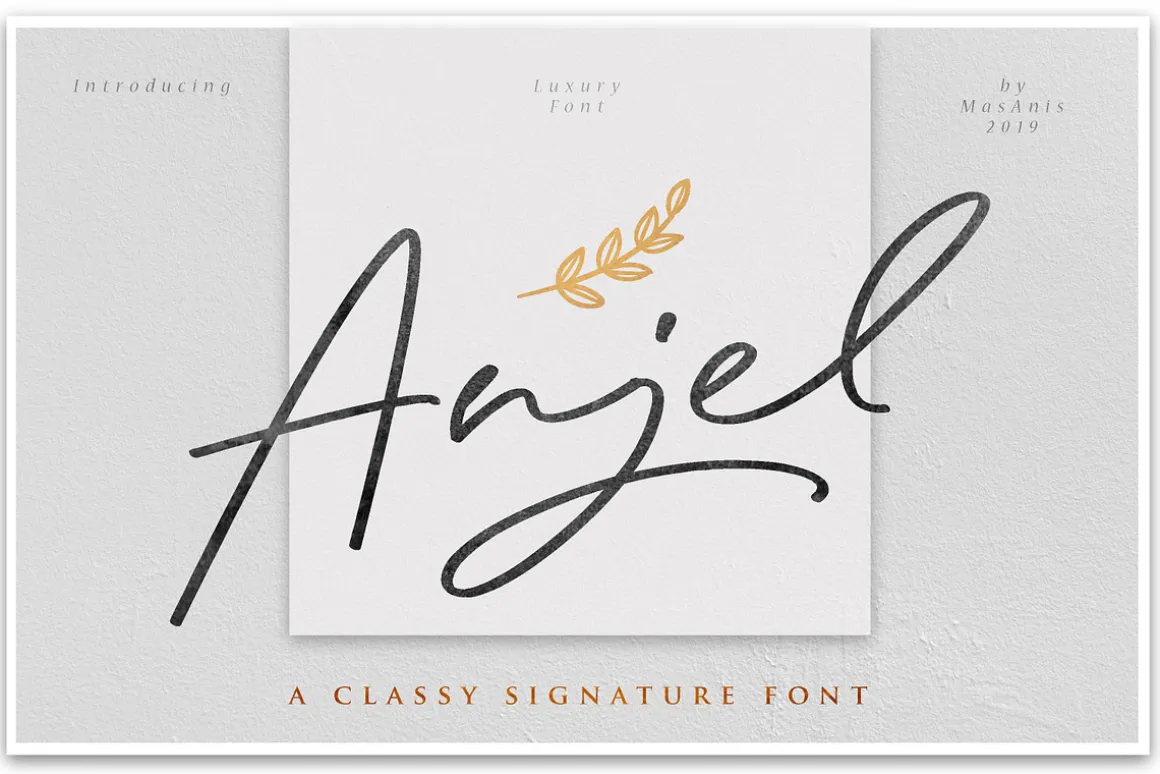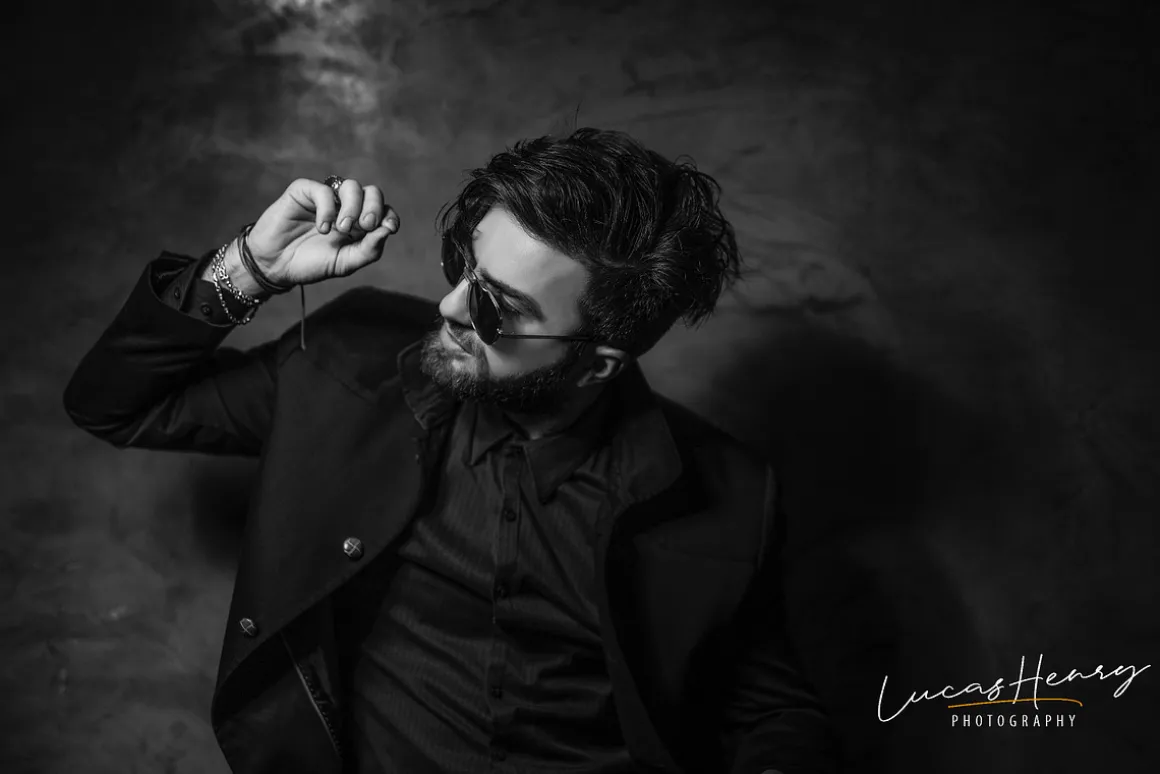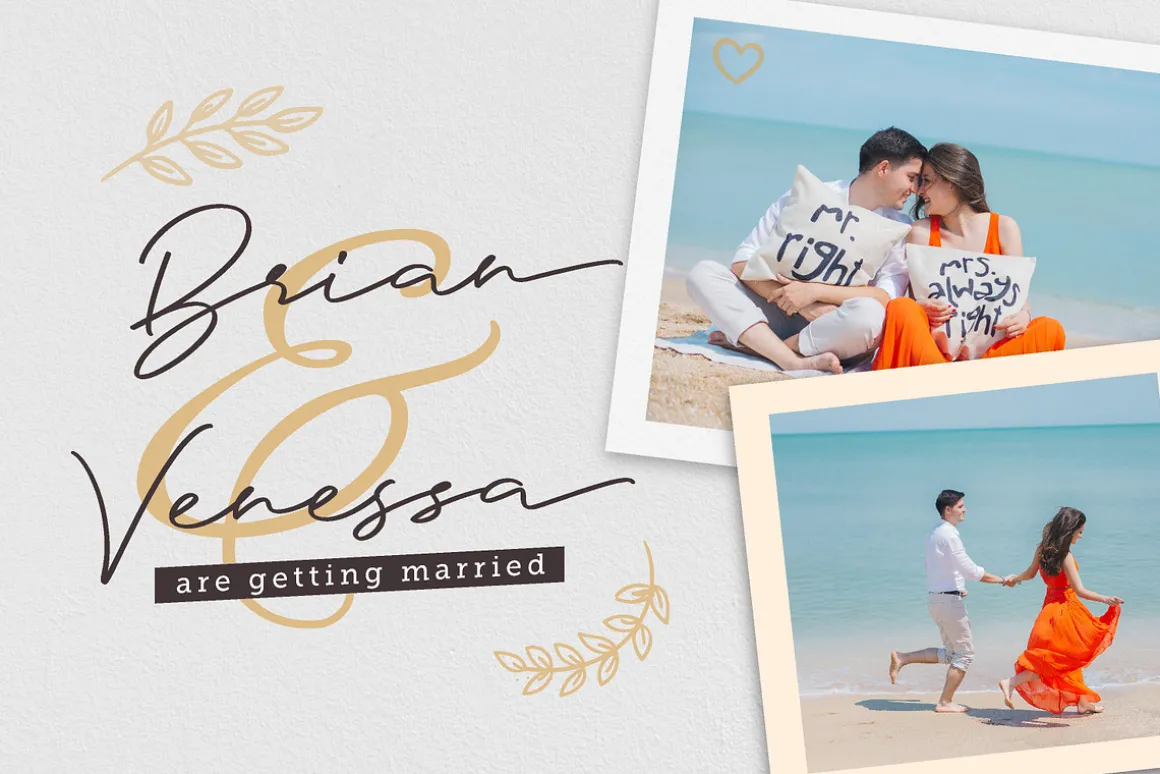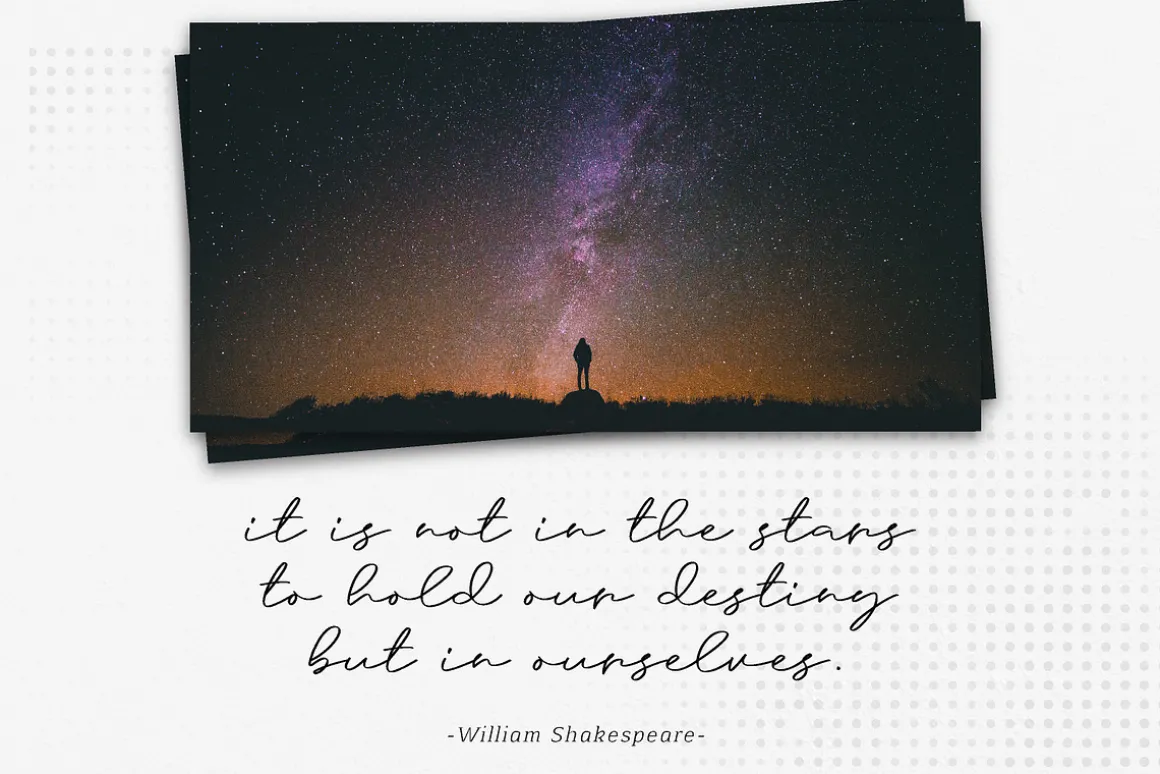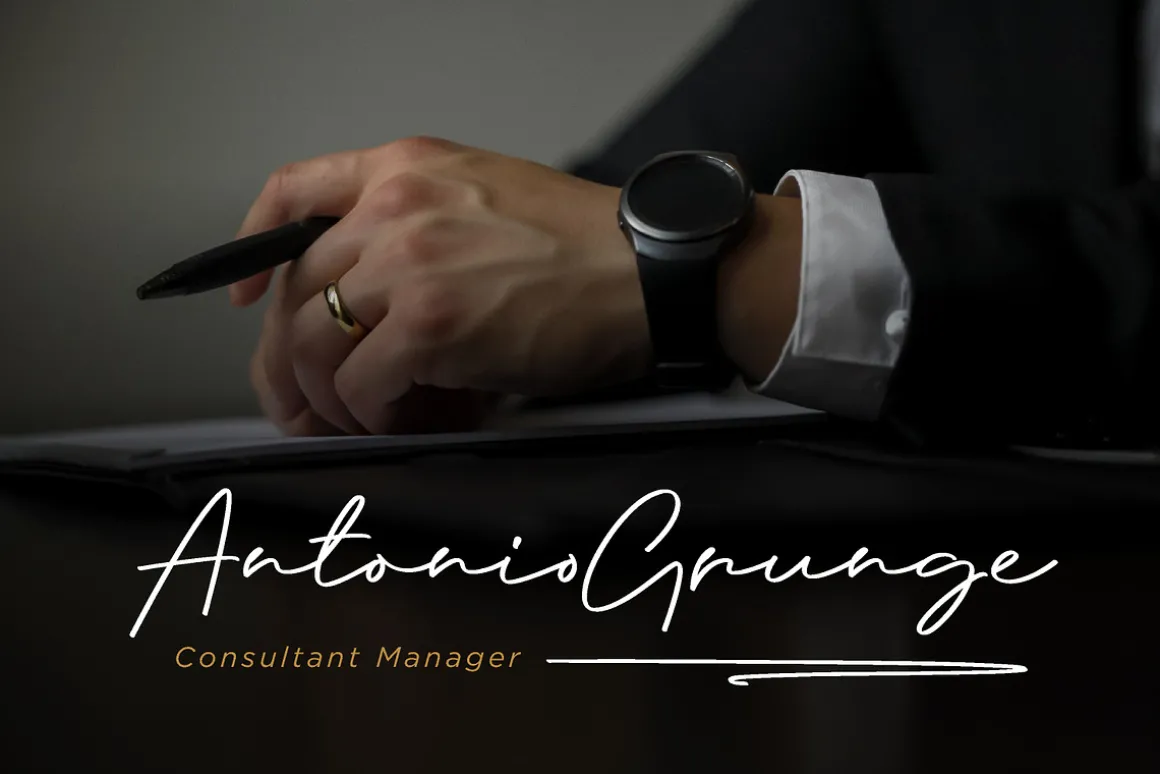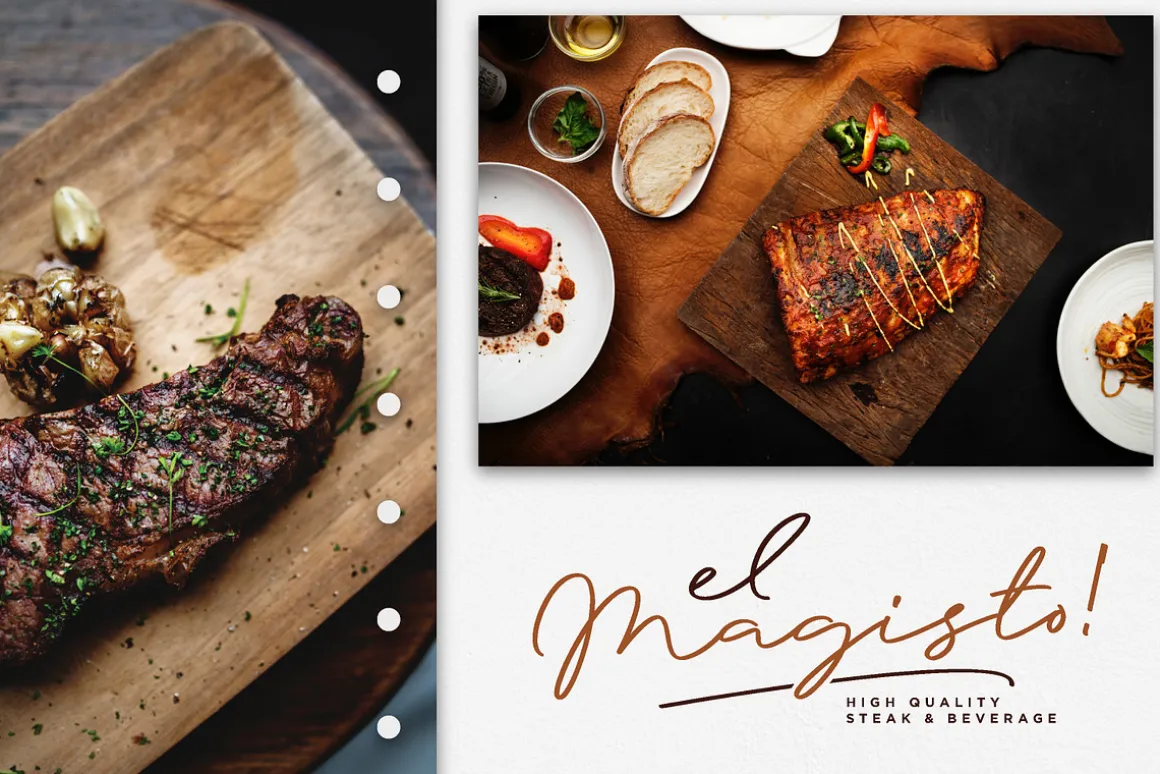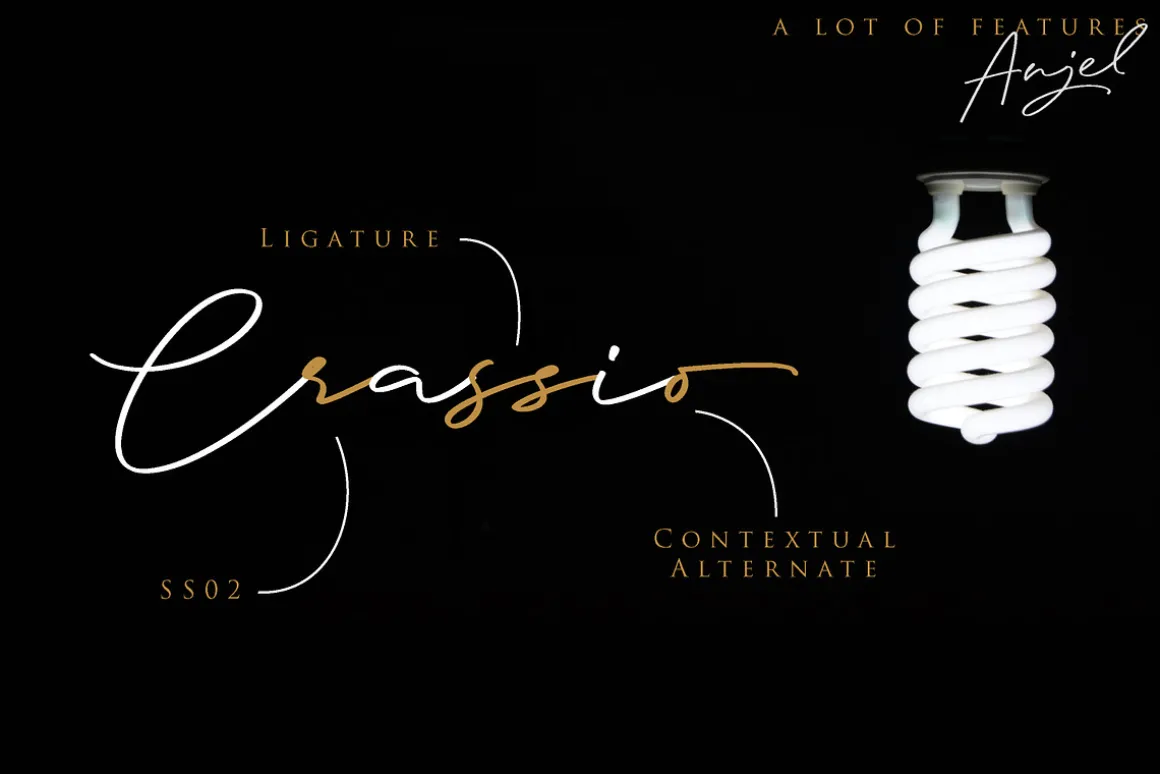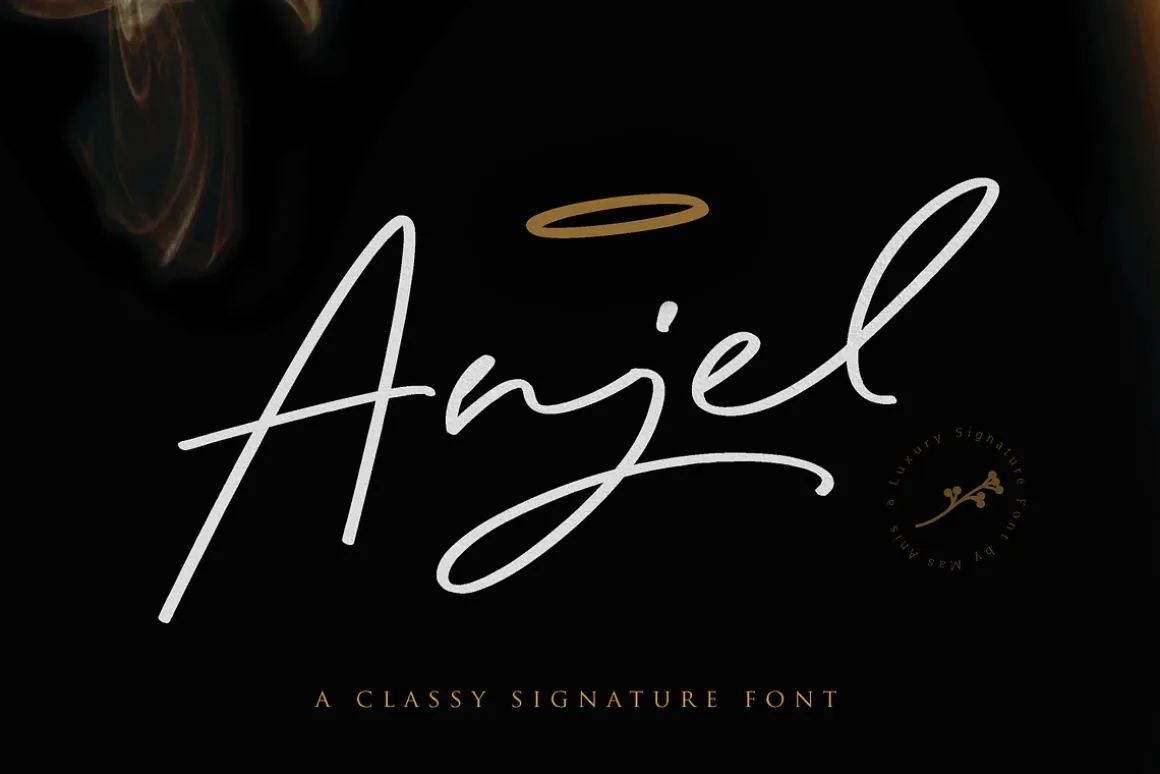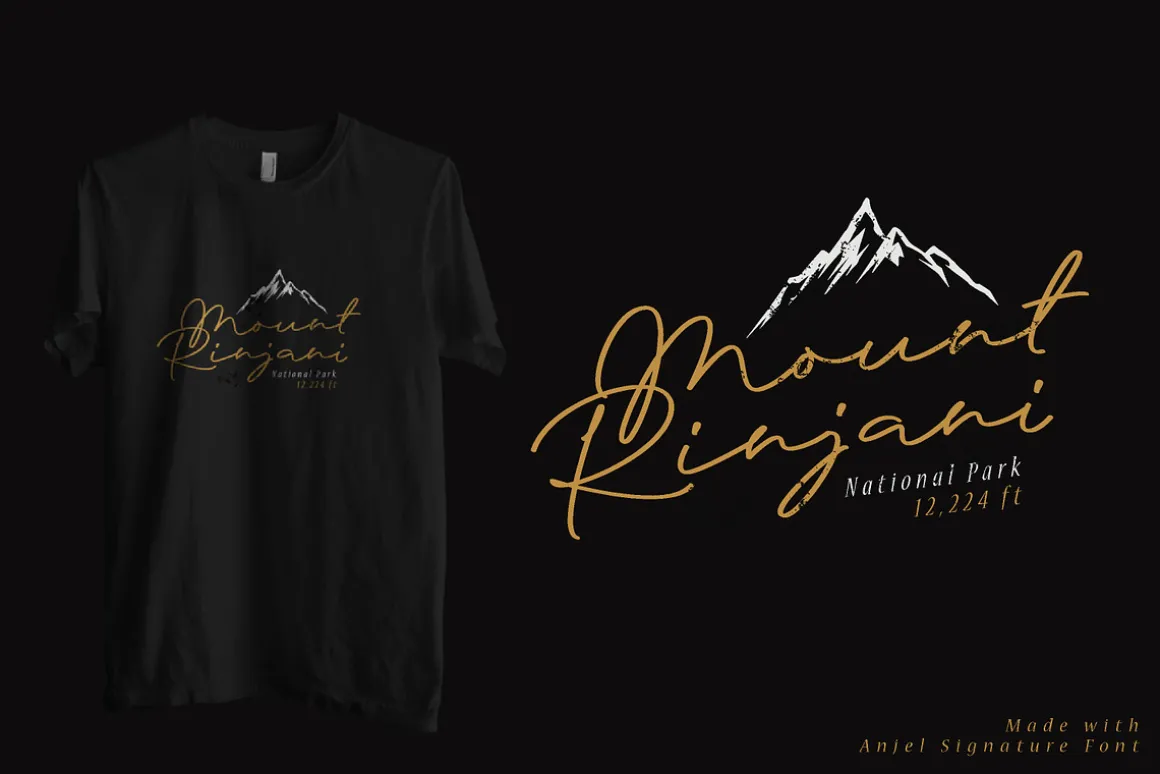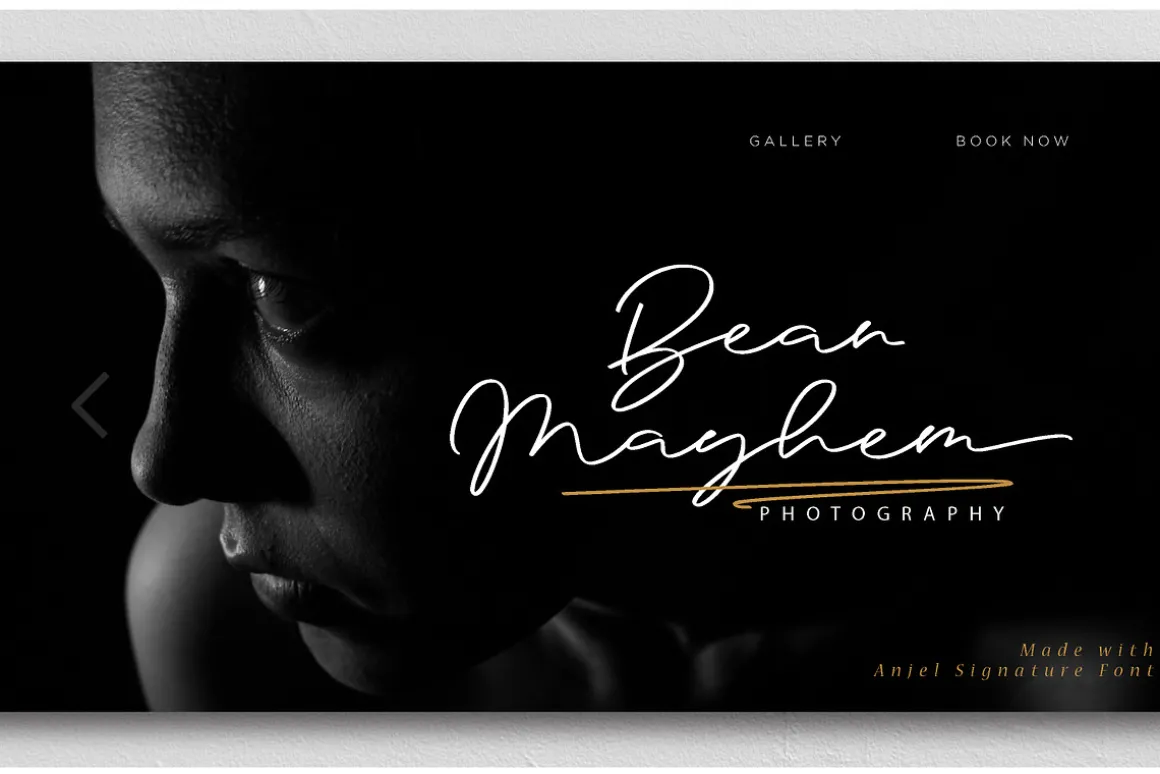
Hi!Introducing,Anjel, An Elegant Classy Signature Font!
Anjel is a fashionable signature that contain lowercase, uppercase, symbol, and also support multi language. There’s a lot ligatures in this font, also already PUA Encoded.
Anjel also comes with swash font that you can use to make a logo for branding, Anjel is the great choice for watermark on photography, signature or signature logo design, quotes, album cover, business card, and many other design project.
Anjel was made with heart to elevate your work to the highest level.